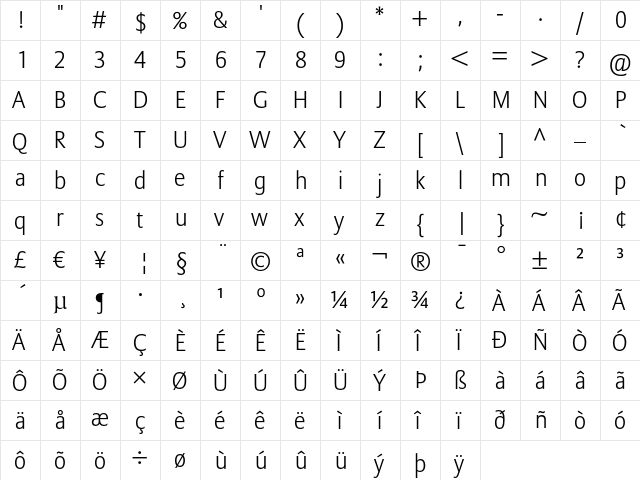
AllianzSans Light
Design Context for AllianzSans Typeface
AllianzSans offers clean, dependable letterforms without strong stylistic allegiance, making it a practical choice for designers who need flexibility. Its slender proportions lend an understated elegance to any composition.